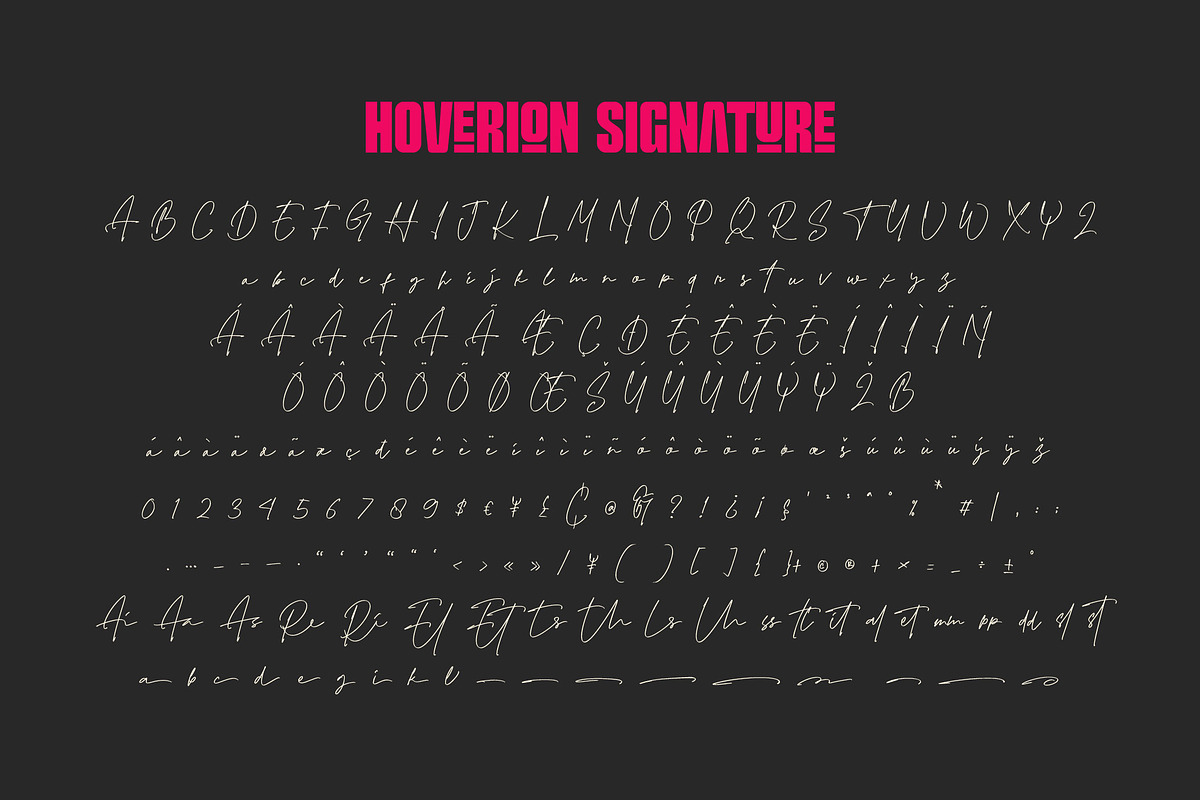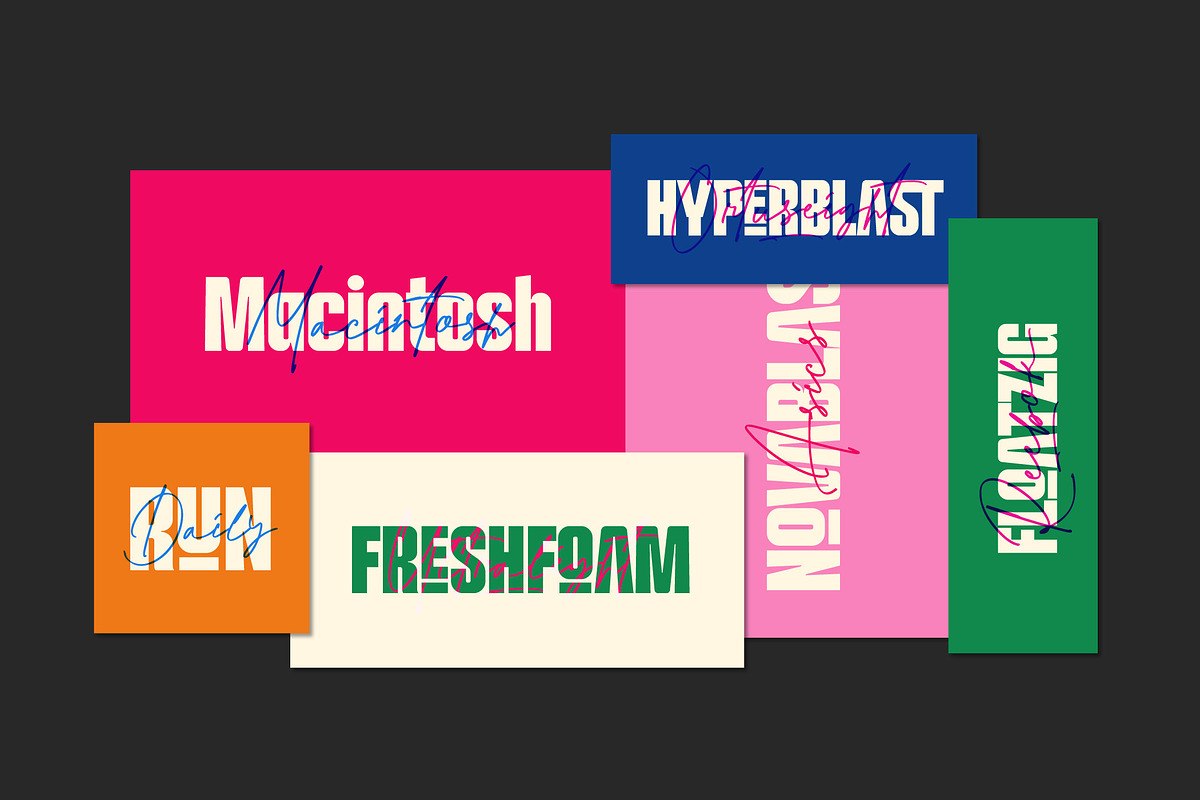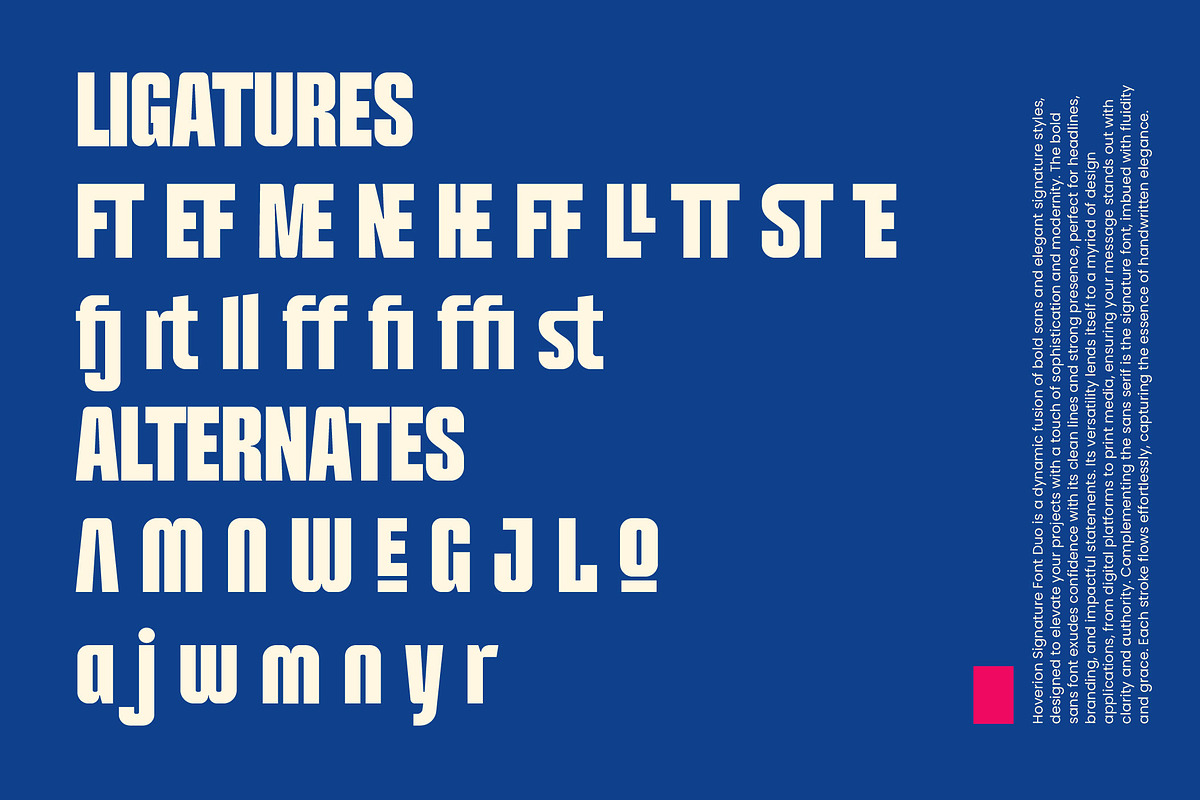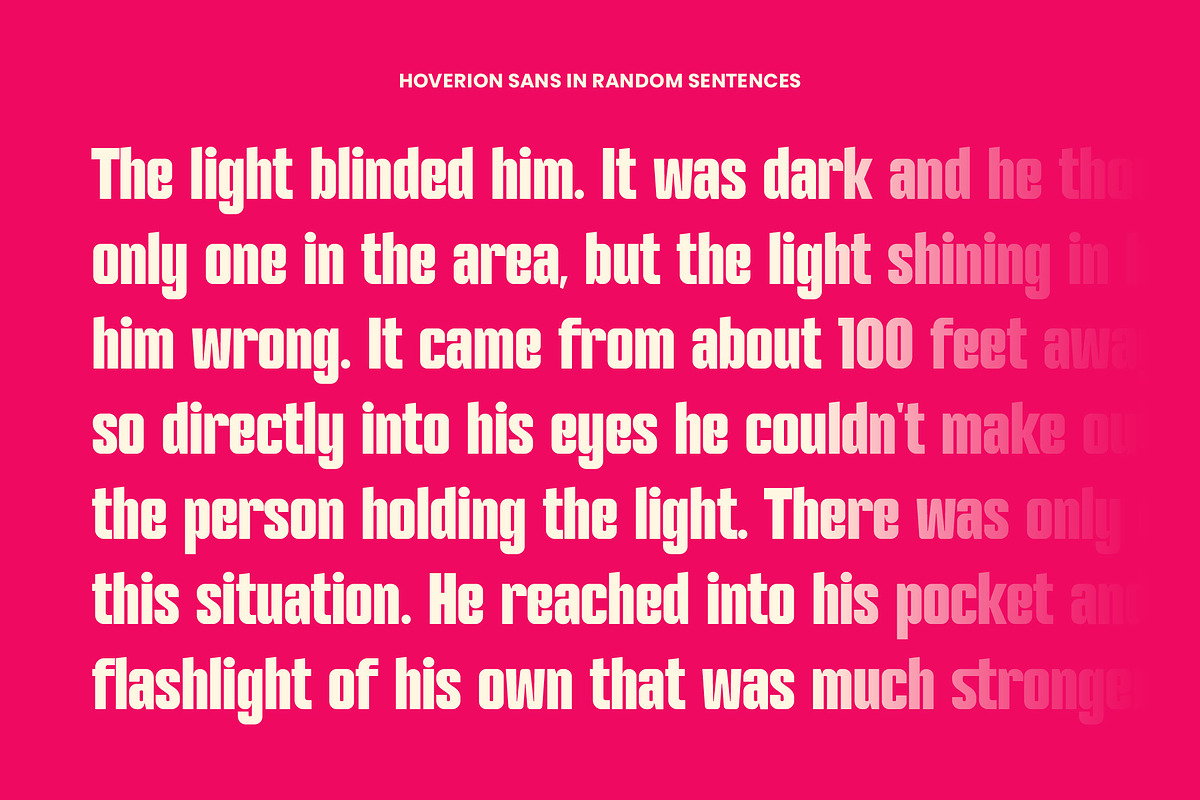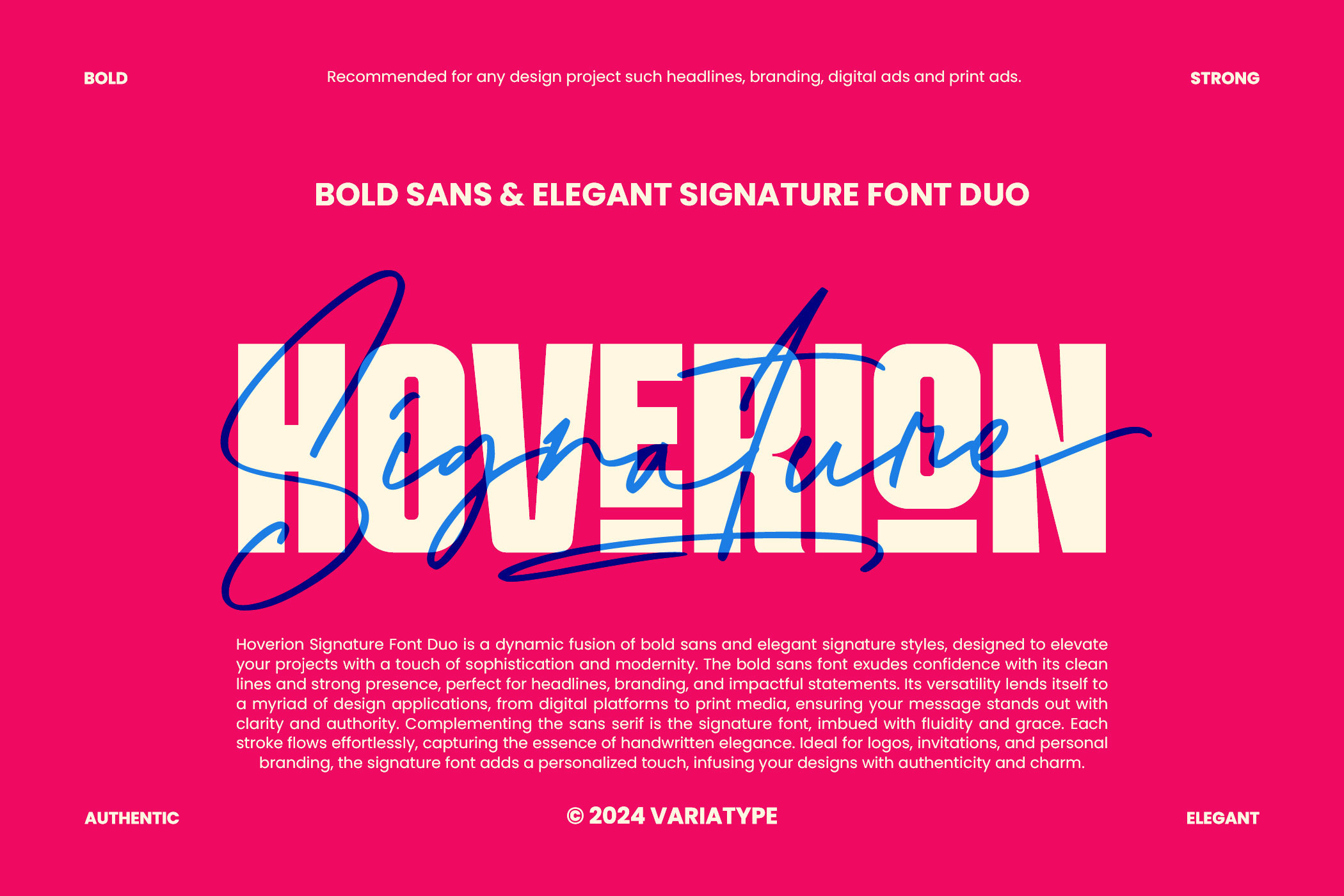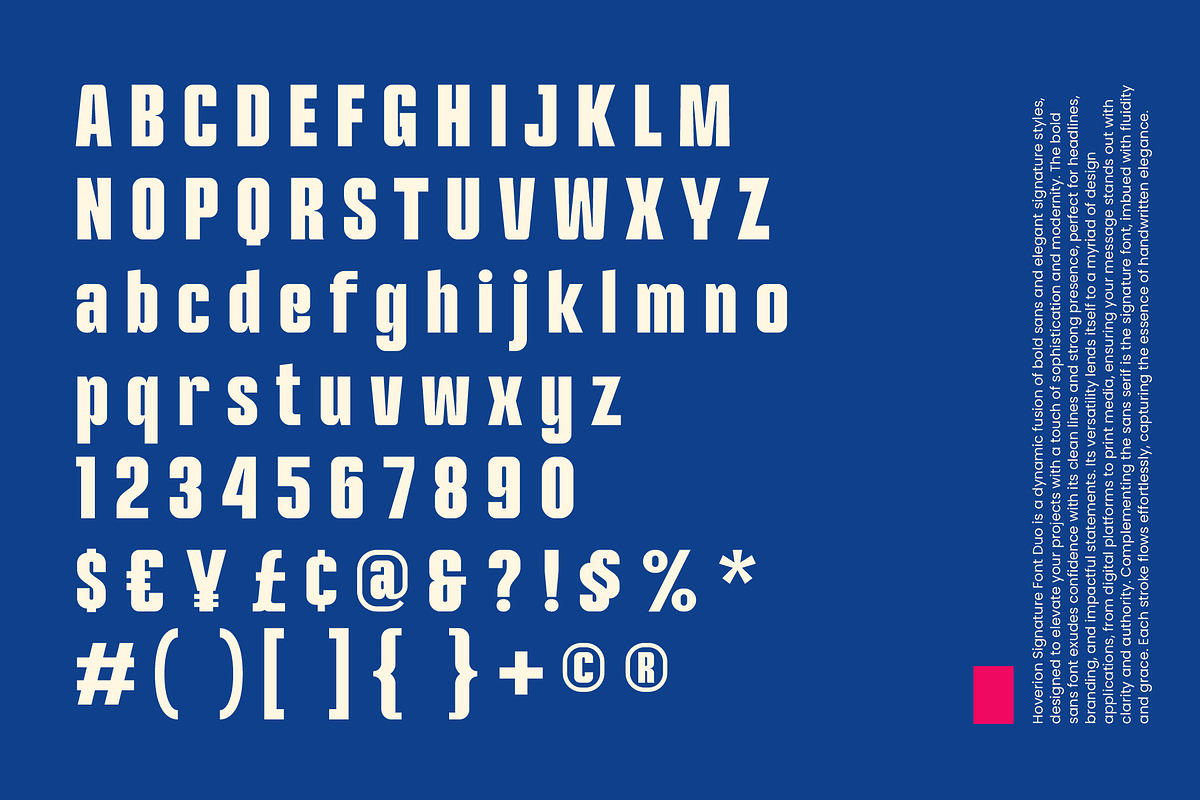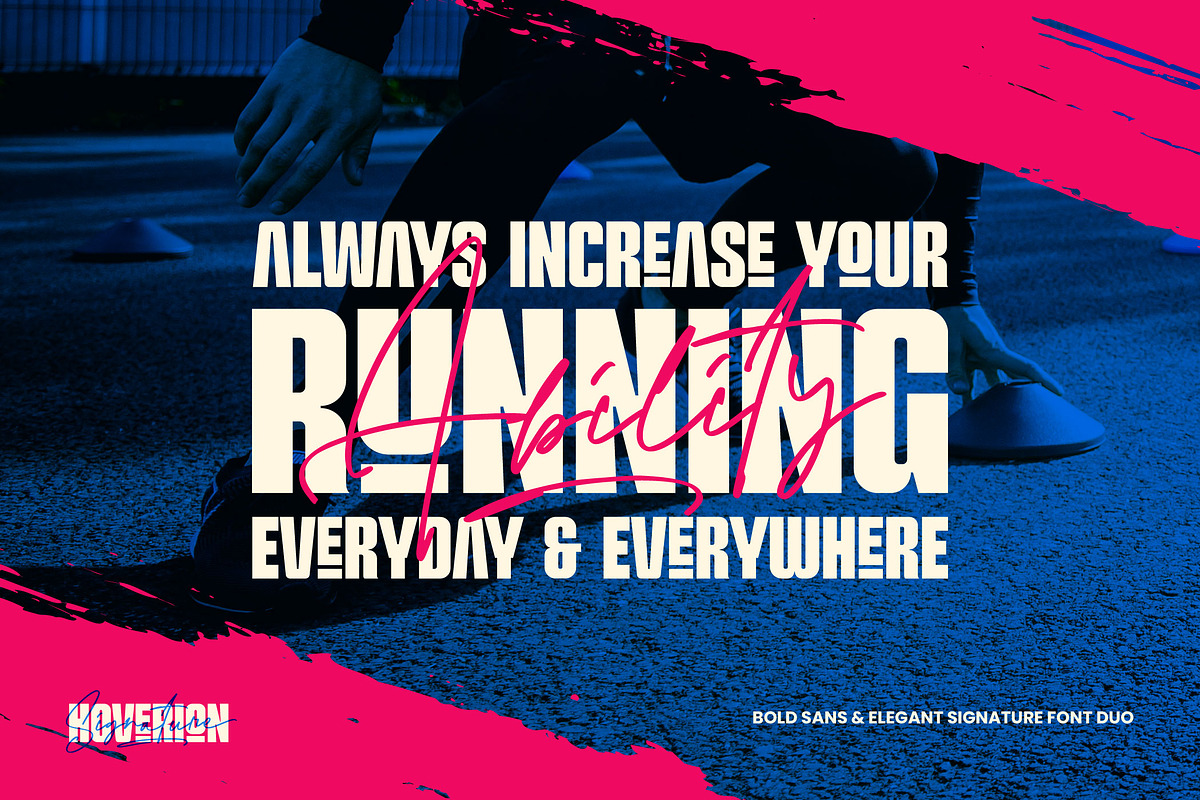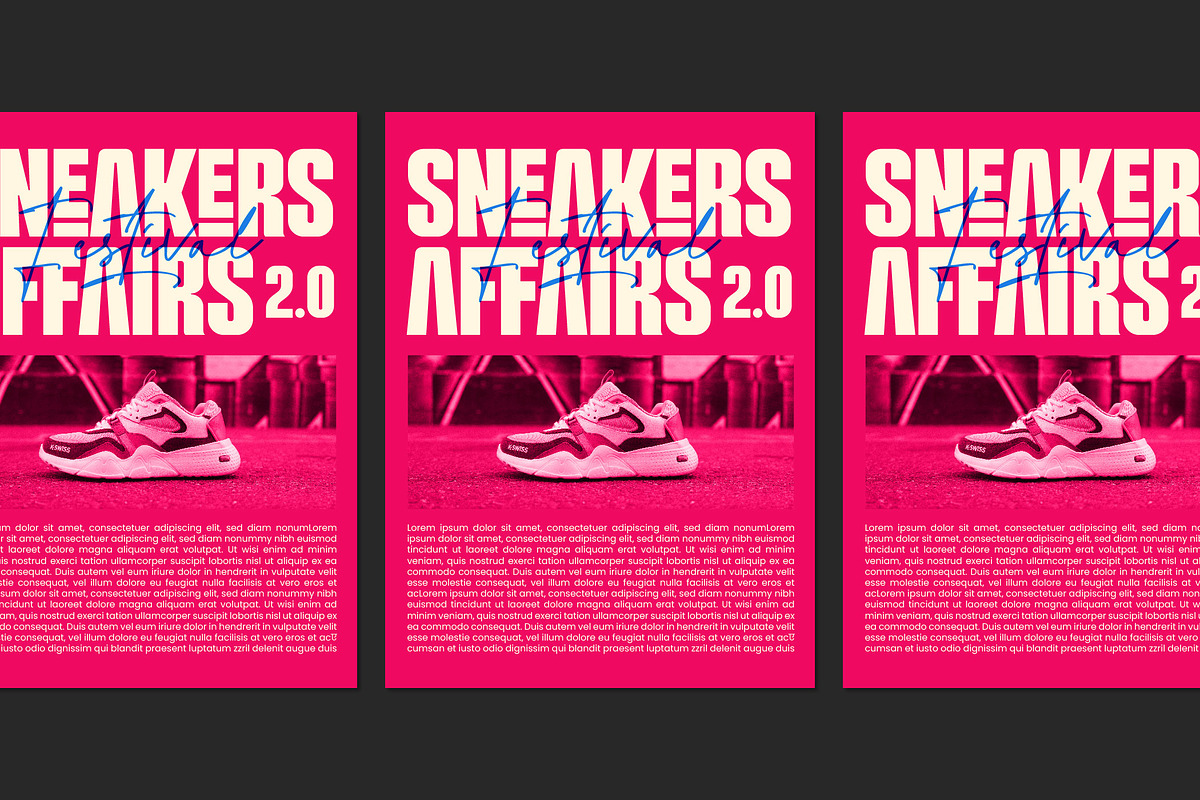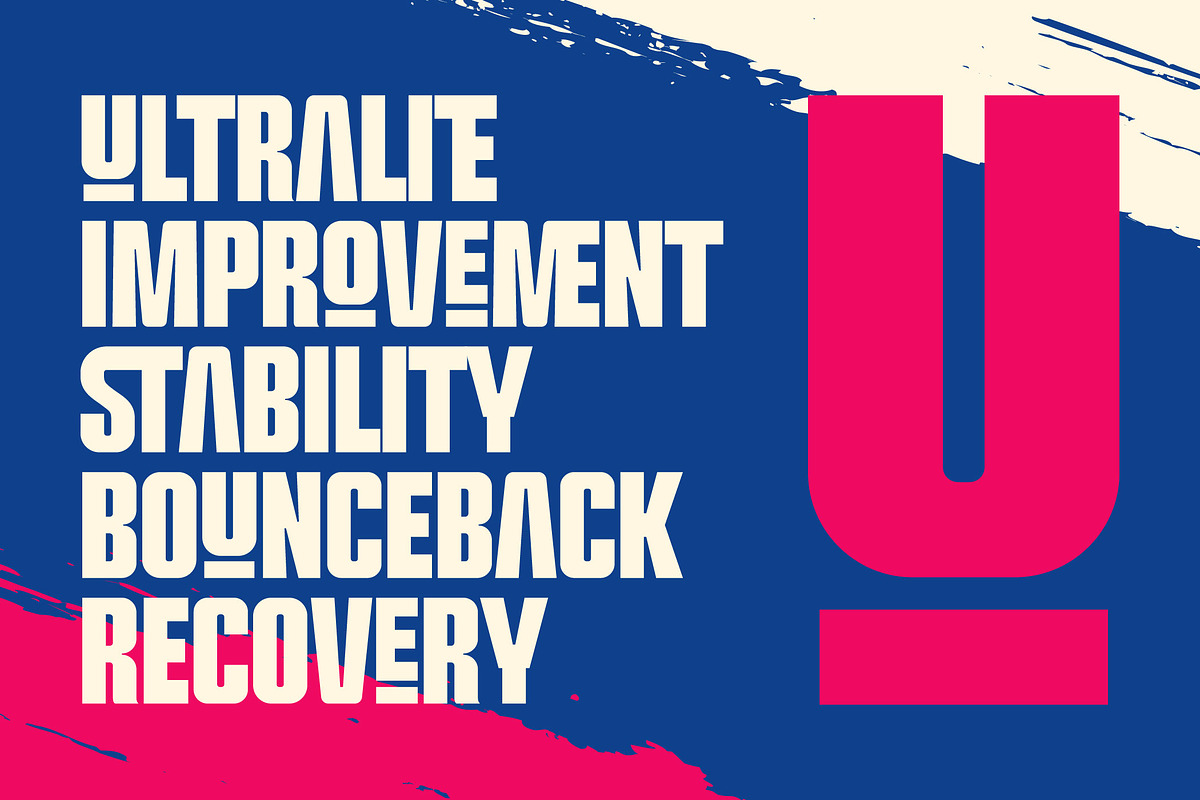
Hoverion - Sans & Signature Font Duo
Introducing the Hoverion Signature Font Duo – a dynamic fusion of bold sans and elegant signature styles, designed to elevate your projects with a touch of sophistication and modernity.
The bold sans font exudes confidence with its clean lines and strong presence, perfect for headlines, branding, and impactful statements. Its versatility lends itself to a myriad of design applications, from digital platforms to print media, ensuring your message stands out with clarity and authority.
Complementing the sans serif is the signature font, imbued with fluidity and grace. Each stroke flows effortlessly, capturing the essence of handwritten elegance. Ideal for logos, invitations, and personal branding, the signature font adds a personalized touch, infusing your designs with authenticity and charm.
Whether you’re crafting sleek corporate materials or crafting bespoke wedding invitations, the Hoverion Signature Font Duo offers a harmonious blend of style and versatility, empowering you to make a long time impression with every project.
FONT FEATURES
Additional Accents
67 Languages
Kerning